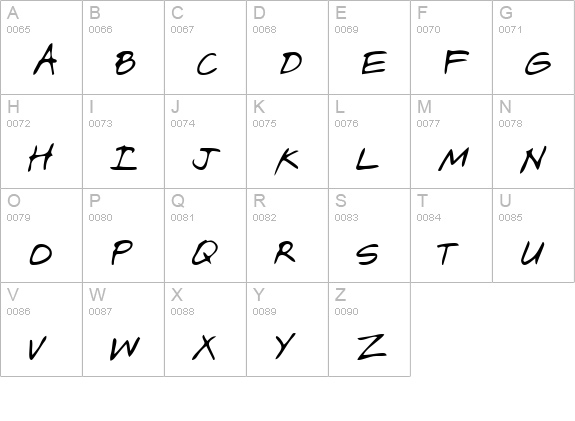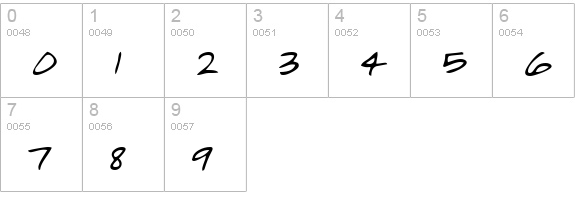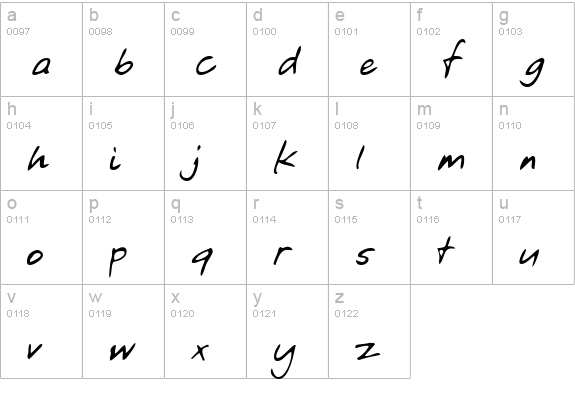
JoshsHand Regular Font Details
JoshsHand Regular is the standard, neutral variant in the JoshsHand typeface family \xE2\x80\x94 well suited to general body text, paragraphs, and standard typographic work.
JoshsHand Regular font is a charming and playful typeface that brings a unique hand-drawn feel to any design project. With its casual and friendly appearance, this font is perfect for adding a personal touch to invitations, greeting cards, branding materials, and more. The flowing strokes and slightly irregular lines give JoshsHand Regular a warm and inviting character that is sure to stand out. Best of all, JoshsHand Regular font is available for free download at FontsMarket.com. Whether you're a designer looking to add a whimsical touch to your work or someone wanting to personalize your projects, JoshsHand Regular is a versatile and eye-catching choice. Download this delightful font today and let your creativity shine!